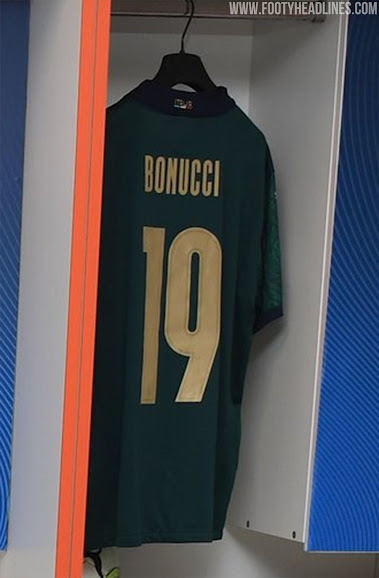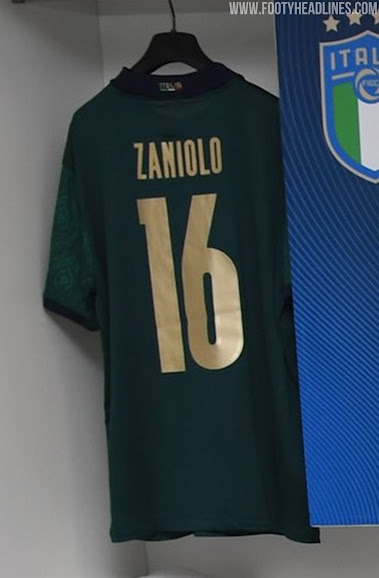
Classy Puma Italy 'Renaissance' Kit Font Revealed
Update: Italy this evening debuted their brand-new 2019-2020 third kit. This also gives us a look at more examples of the new Italy 2020 kit font - we do not know ywt if the typeface to be also used in the EURO 2020.
Puma Italy 'Renaissance' Kit Font
The new font designed by Puma for the Italy 'Renaissance' third kit is absolutely stunning.
The font is gold to match the logos on the front. There's a subtle border detail inspired by decorative stitching used during the Renaissance period. The FIGC crest, applied in the same understated manner, completes the look.